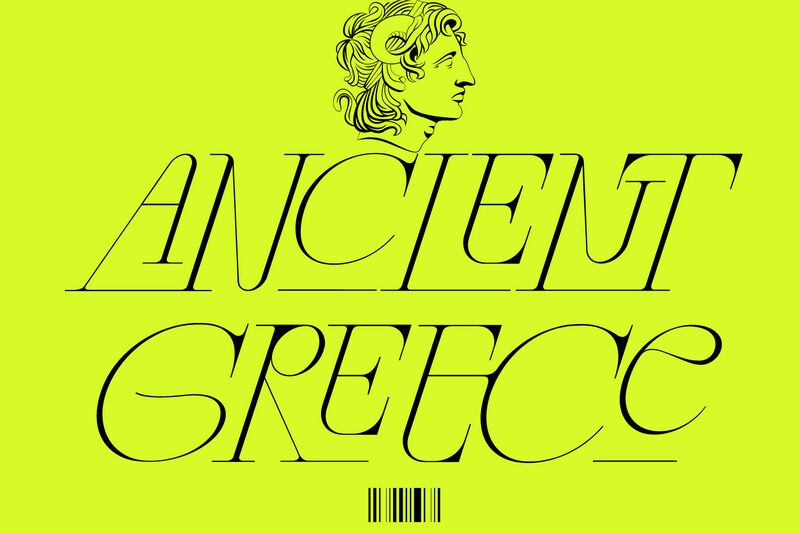
Ancient Greece Demo Regular
Ancient Greece is a retro display font with a light weight. The font is available in uppercase and lowercase letters and features a wide range of alternates.
Ancient Greece has a strong personality; it is a mysterious font with strong ties to ancient civilizations, it also comes with a selection of symbols and characters to give you an even stronger grasp over what it can do. You can download Ancient Greece by 177Studio for free for personal use. A commercial license is required for commercial use.